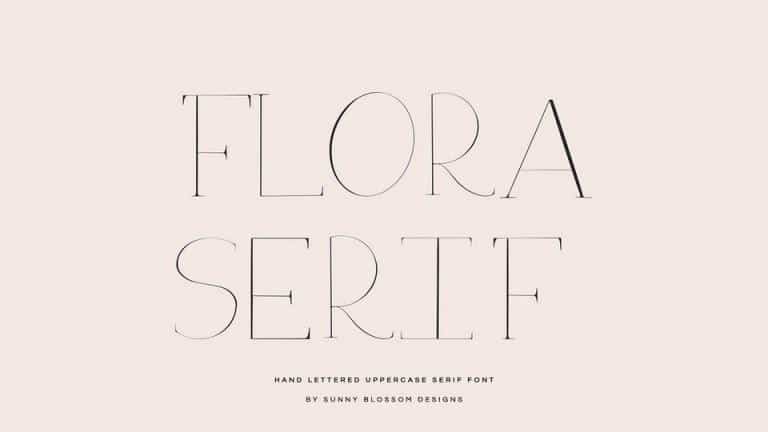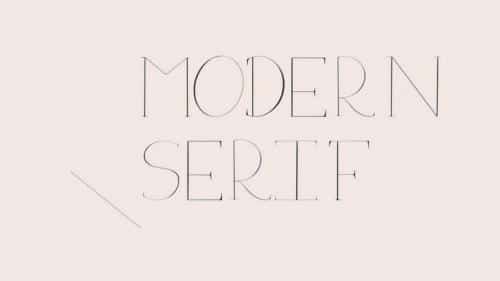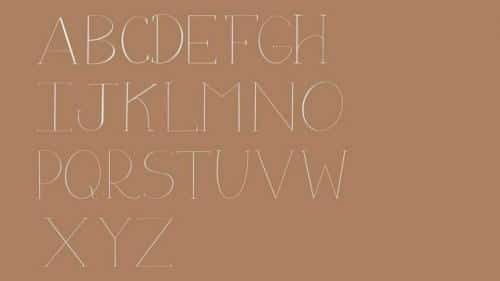
Flora Serif Font is a playfully modern serif typeface. Combines classic style fonts moderated with a touch of minimalist design, produces beautiful and elegant fonts.
It’s a modern hand lettered serif font that looks elegant and natural. The font comes with uppercase only, no punctuation, numbers or lowercase letters.
Very suitable to be used for the manufacture quote text, logotype, header magazine, t-shirt design, business cards, wedding cards and concept handmade designs, ect.